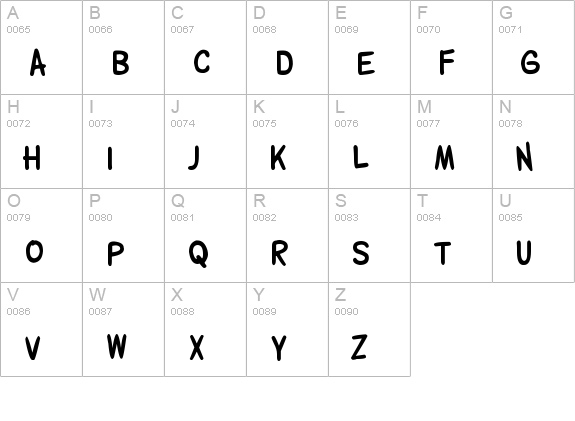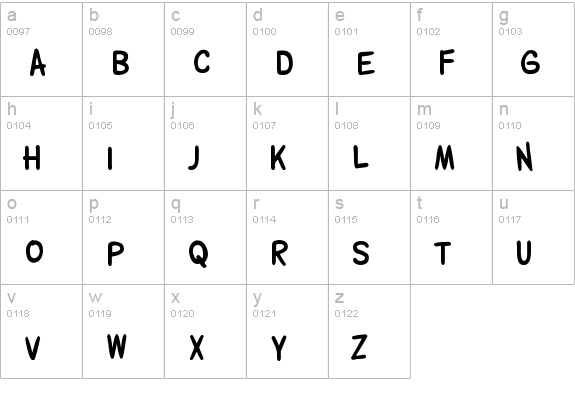
Wolfganger Font Details
Wolfganger font is a modern and stylish typeface that exudes elegance and sophistication. With its sleek lines and unique design, this font is perfect for a wide range of design projects, from branding to packaging to digital graphics. The clean and bold letterforms of Wolfganger font make it a versatile choice for both print and digital applications. What's even better is that Wolfganger font is available for free download at FontsMarket.com. This means that you can easily access this stunning font and use it in your projects without any cost. Whether you're a professional designer or a hobbyist looking to add a touch of flair to your creations, Wolfganger font is sure to impress with its timeless appeal and modern aesthetic. Download Wolfganger font today and elevate your designs with its sleek and sophisticated look.